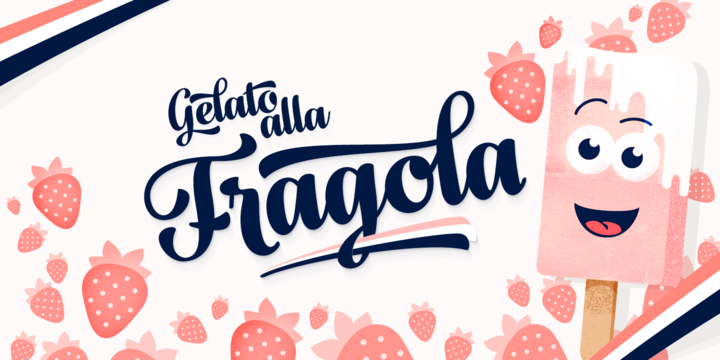
Fragola Demo Font
Introducing the new font family. Fragola Font Family designed and shared by Fenotype. Fragola is a bold and groovy script family with plenty of OpenType features and extra swashes. Combine Swash, Stylistic or Titling Alternates or manually select from even more alternates in any OpenType savvy program to create groovy headlines and spice up your design with Fragola Extras.